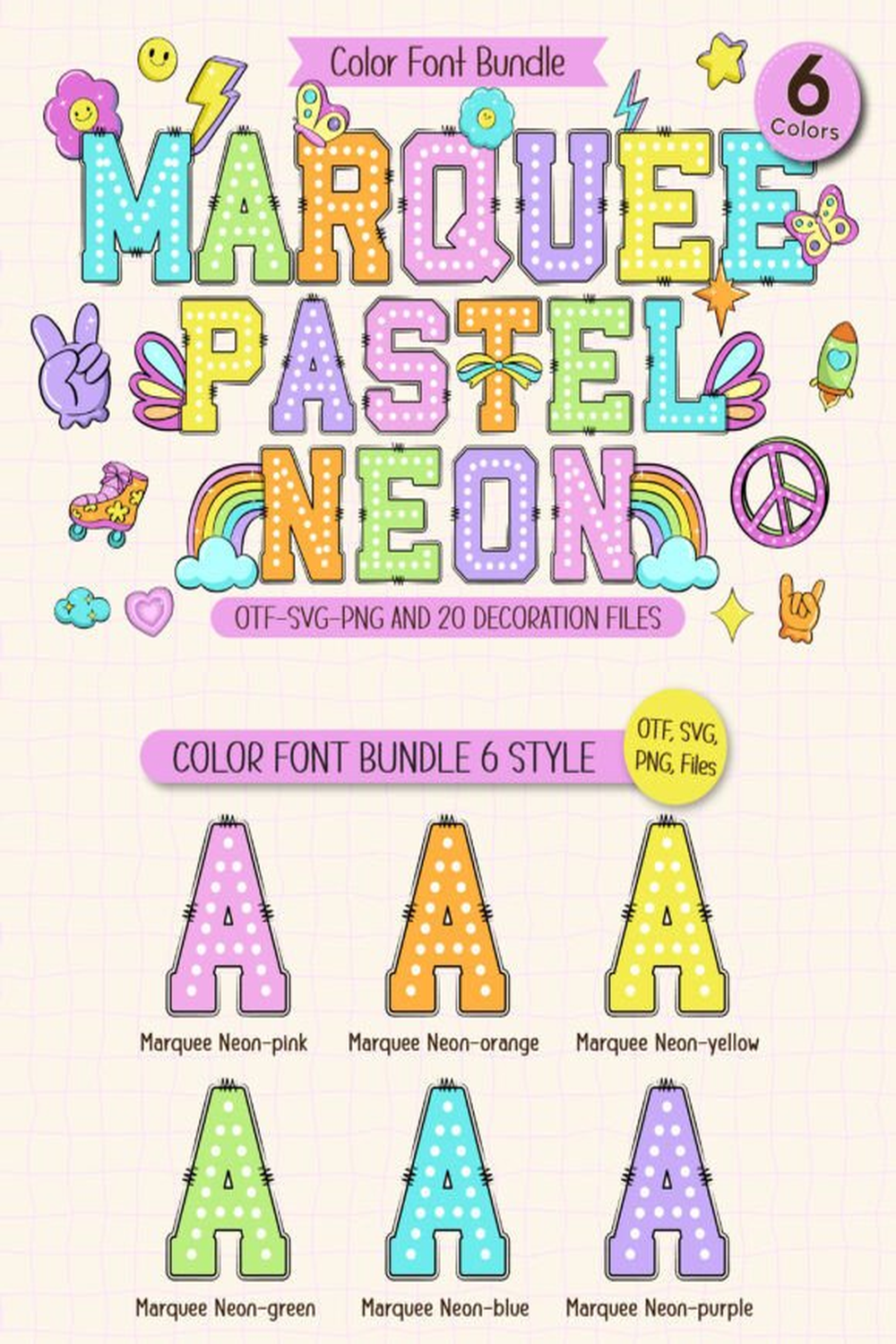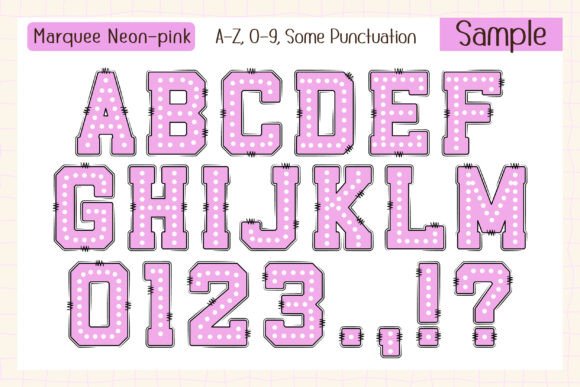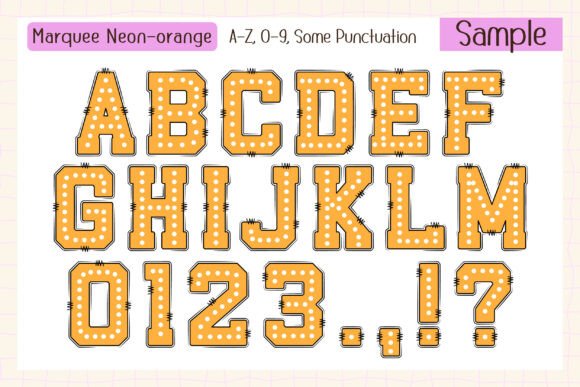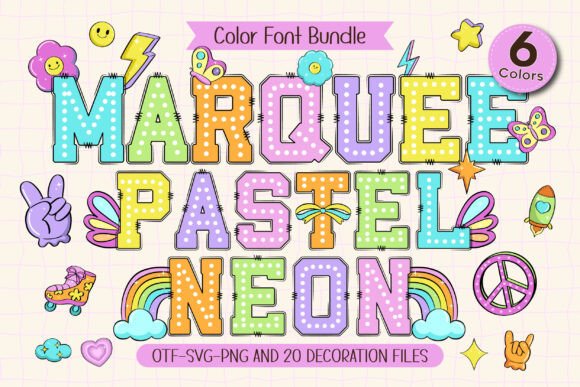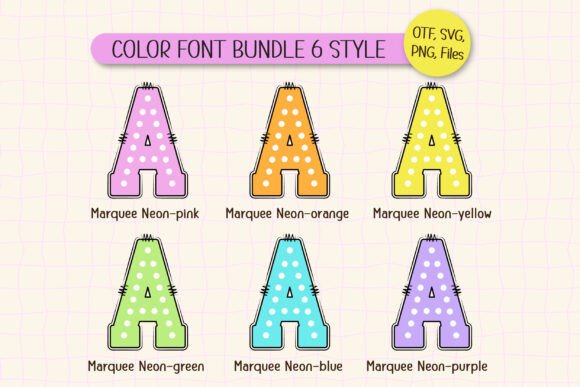
Marquee Pastel Neon Font
About the Marquee Pastel Neon Font
Get ready to be inspired by Marquee Pastel Neon Font, a fresh and dynamic typeface for modern creators. Introducing “Marquee Pastel Neon” a fun and vibrant color font that blends the classic marquee style with bright, glowing neon pastel colors to create a cute, playful, and kid-friendly design. With 6 colorful font variations and 20 matching doodle cliparts, this set is perfect for adding energy and excitement to children’s projects, school activity posters, classroom signs, important day cards, party decorations, t-shirts, bag designs, water bottles, DIY crafts, and so much more. Whether for learning or celebration, Marquee Pastel Neon brings a pop of brightness and joy to every creation!